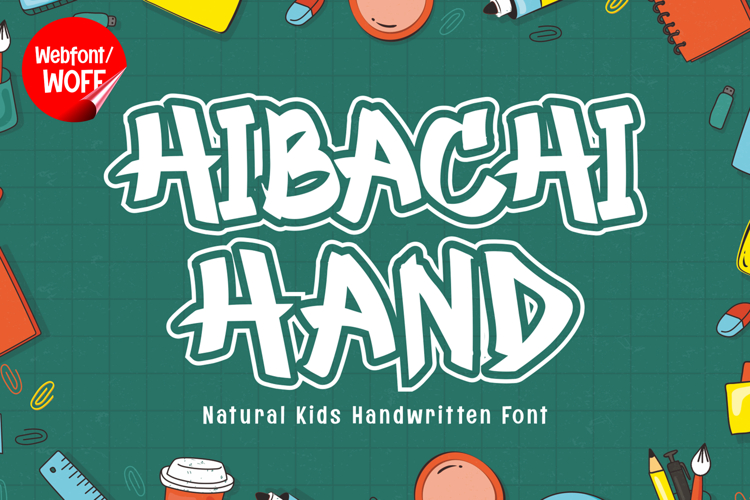
Hibachi | Natural Kids Handwritten Webfont for Playful Web
Hibachi is a natural kids handwritten webfont designed to bring a fun, friendly, and authentic handwritten feel into modern website design. Inspired by the spontaneous strokes of children’s handwriting, this font features soft, imperfect lines and organic shapes that create a warm and approachable visual style. It is an excellent choice for projects that aim to deliver a playful and genuine personality.
Hibachi includes a complete set of uppercase characters designed with natural handwritten forms. The uneven strokes and slightly irregular shapes give the font a lively and expressive character, making it ideal for headlines, banners, hero sections, and featured content. The casual and friendly look helps create an inviting atmosphere for website visitors.
In addition to letters, the font includes numbers and punctuation, allowing flexible usage across various parts of a website. It works well for educational content, product descriptions, promotional text, and call-to-action sections. Each character maintains a consistent handwritten style, ensuring a cohesive and unified visual identity throughout the layout.
With multilingual support, Hibachi includes a wide range of accented characters, making it suitable for international websites and global audiences. This allows content to be displayed clearly across different languages while preserving the natural handwritten aesthetic.
The natural kids handwritten style of Hibachi makes it especially suitable for children’s websites, educational platforms, toy brands, creative blogs, and lifestyle content. Its soft and organic design adds warmth and personality, helping websites feel more engaging and relatable. The handwritten feel also enhances storytelling and creative presentation.
Despite its casual and playful appearance, Hibachi is designed with readability in mind. The spacing and proportions are carefully balanced to ensure clarity, particularly in display sizes. This makes it effective for impactful headings and short content elements where both style and usability are important.
Hibachi is a webfont that combines natural handwritten expression with modern digital performance. Its organic strokes, friendly character, and playful style create a distinctive typographic presence that enhances website design. For projects that require a fun, warm, and visually engaging font, Hibachi offers a reliable and charming solution.